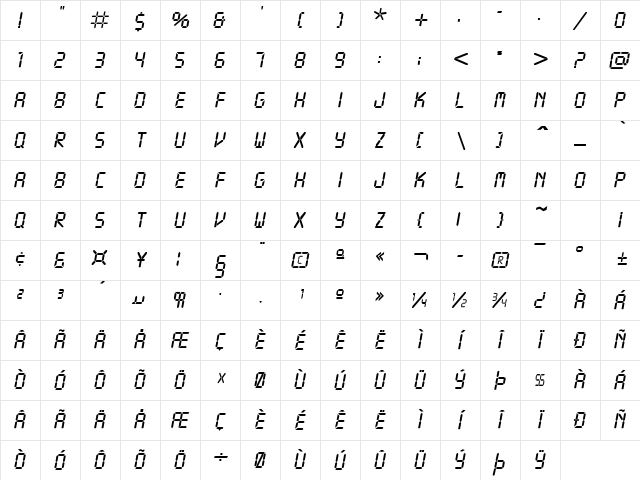
Readout Italic Free Font
Readout Italic
Complete Readout Italic glyph index. Displaying only characters natively supported by Readout Italic font.
Design Context for Readout
Readout is a composed and adaptable typeface that performs quietly and consistently across a wide range of design contexts. The slanted form adds forward momentum and visual energy.
Pro Tip: Use Readout for emphasis, pull quotes, and subheadings where its slanted energy can add rhythm to the layout.